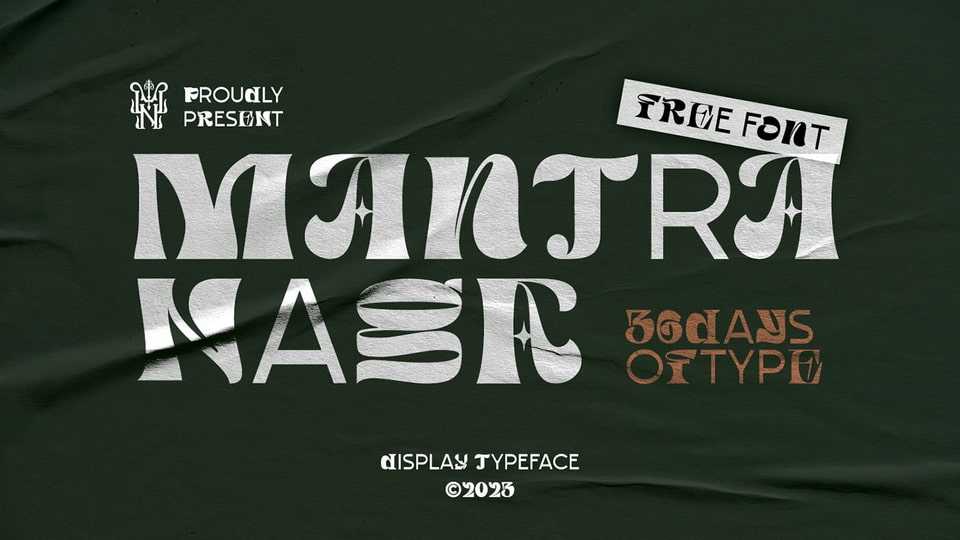
Download Mantranaga 36DOT font, a display typeface that’s a symphony of creativity, where every character is a unique work of art. This font is perfect for designs that require a sense of individuality and a touch of creative originality.